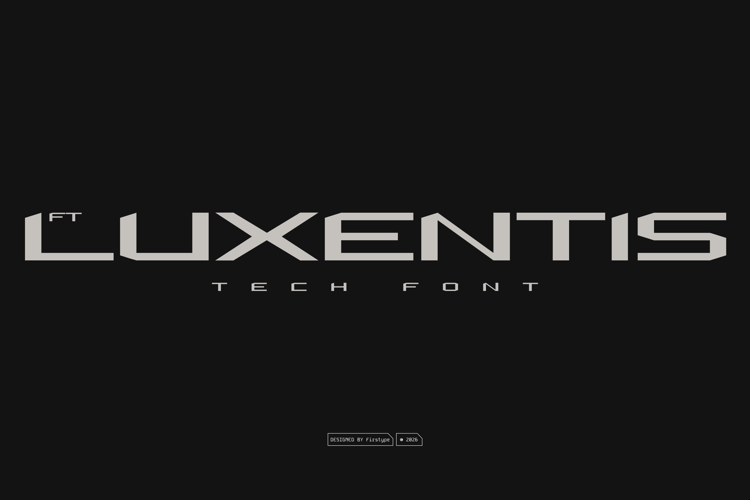
FT LUXENTIS – FREE Luxury Automotive & High-Tech Display Typeface Font
FT Luxentis is a luxury automotive-inspired typeface that blends high-tech precision with elegant modern design. Created to represent speed, innovation, and premium quality, Luxentis is perfect for projects that need a bold yet sophisticated presence.
Inspired by supercar branding and futuristic engineering, this font delivers sharp geometry, strong structure, and a refined visual rhythm that feels both powerful and exclusive. It works beautifully for logos, automotive designs, technology branding, posters, headlines, and premium product presentations.